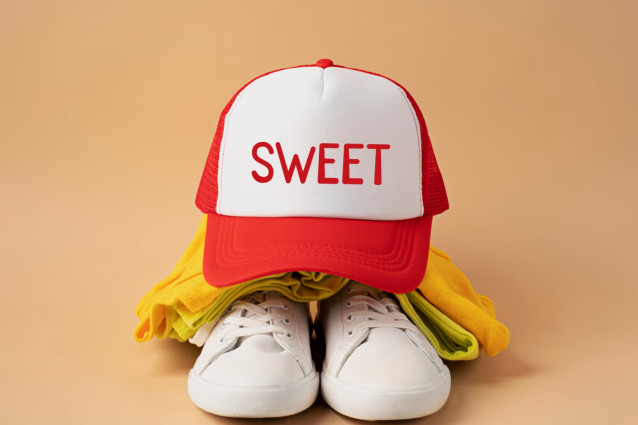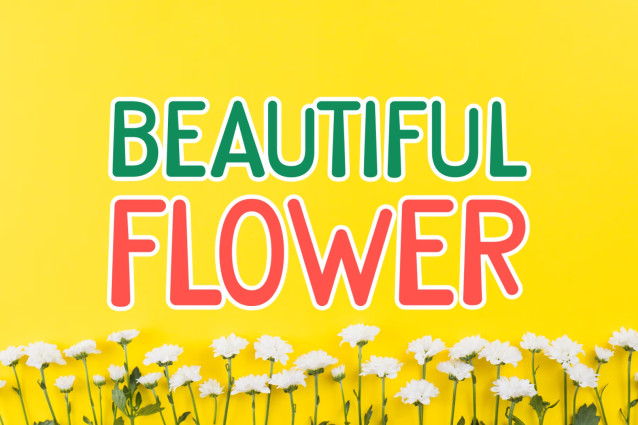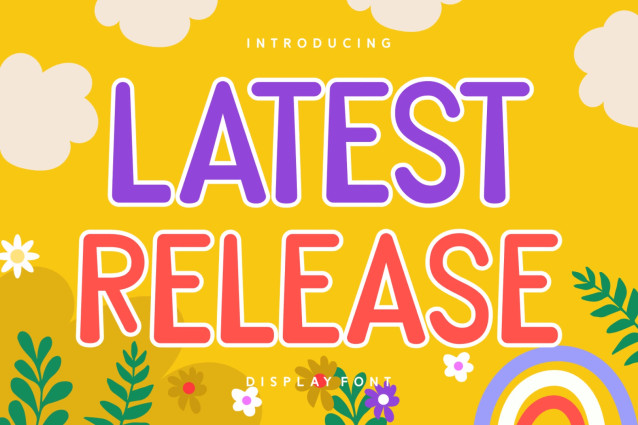
Latest Release Font
“Latest Release” embodies the brilliance of display fonts harmoniously woven into craft fonts. Its natural and unique style makes it incredibly fitting to a large pool of designs. The only limit is your